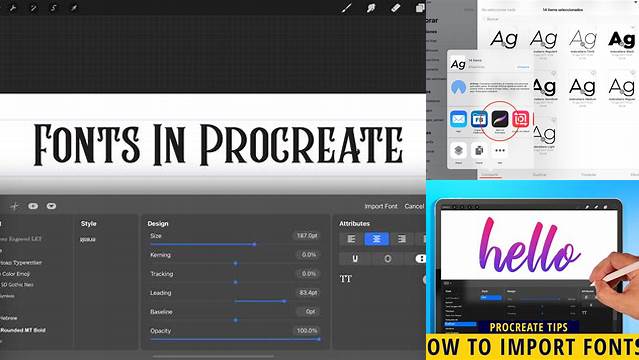
Import Fonts To Procreate: A Step-by-Step Guide
Hey guys! Want to take your Procreate artwork to the next level? One of the easiest ways to do that is by using custom fonts. Procreate's built-in font selection is decent, but it doesn't offer the variety needed to truly make your designs stand out. Luckily, importing fonts into Procreate is a breeze, and in this comprehensive guide, I'm going to walk you through everything you need to know. We'll cover the basics of finding fonts, downloading them, and installing them on your iPad, so you can start using them in Procreate right away. So, grab your Apple Pencil, and let's dive in!
Why Import Fonts into Procreate?
Before we get into the how, let's talk about the why. Why should you even bother importing fonts into Procreate? Well, the answer is simple: fonts are powerful design elements. They can convey mood, tone, and style just as effectively as colors and illustrations. Using the right font can elevate your artwork from good to great. Think about it – a playful, handwritten font can add a whimsical touch to a children's book illustration, while a bold, sans-serif font can make a statement in a poster design. The possibilities are endless when you have a vast library of fonts at your fingertips.
Procreate's built-in fonts are a good starting point, but they're limited in scope. If you want to create truly unique and professional-looking artwork, you'll need to expand your font collection. Importing fonts allows you to use fonts that perfectly match your artistic vision, whether you're working on lettering, comics, illustrations, or any other type of project. Plus, exploring new fonts can be a fun and inspiring way to spark creativity. You might discover a font that you never would have considered before, and it could become a key element in your next masterpiece. The ability to import fonts into Procreate opens up a whole new world of design possibilities, giving you the freedom to express yourself fully and create artwork that truly reflects your personal style. So, if you're serious about taking your Procreate skills to the next level, learning how to import fonts is an essential step. Trust me, guys, once you start using custom fonts, you'll wonder how you ever created anything without them!
Finding the Perfect Fonts for Procreate
Okay, so you're convinced that importing fonts is the way to go. The next step is finding those perfect fonts to add to your collection. The good news is that there are tons of resources out there, both free and paid, where you can discover amazing fonts. But with so many options available, it can feel a little overwhelming. Don't worry, I'm here to help you navigate the world of fonts and find the best ones for your needs. Let's break down some popular options and things to keep in mind when searching.
Step-by-Step Guide: Importing Fonts to Procreate
Alright, you've found some awesome fonts and you're itching to use them in Procreate. Now comes the fun part: importing them! Don't worry, it's a super straightforward process. I'm going to break it down into easy-to-follow steps so you can get your fonts into Procreate and start creating amazing artwork. Let's get to it!
1. Download the Font Files: The first step is to download the font files to your iPad. When you download a font from a website, it usually comes in a ZIP file. This file contains the font files themselves, which are typically in .otf (OpenType Font) or .ttf (TrueType Font) format. These are the standard font formats that Procreate supports. Once you've downloaded the ZIP file, you'll need to unzip it to access the font files. To do this, simply tap on the ZIP file in the Files app, and it will automatically extract the contents into a new folder. Make sure you know where the unzipped folder is located, as you'll need to access it in the next step.
2. Install the Font on Your iPad: Now that you have the font files, it's time to install them on your iPad. This is a crucial step, as Procreate can only use fonts that are installed on your system. There are a couple of ways to install fonts on your iPad, but the easiest and most common method is to use the Files app. Here's how:
- Open the Files app on your iPad.
- Navigate to the folder where you unzipped the font files.
- Tap on the font file you want to install (it will have a .otf or .ttf extension).
- A preview of the font will appear. Tap the "Install" button in the top right corner.
- A pop-up will ask if you want to install the font profile. Tap "Allow".
- You'll be redirected to the Settings app. Tap "Install" in the top right corner again.
- If you have a passcode set up on your iPad, you'll need to enter it.
- Tap "Install" one more time to confirm the installation.
- Once the font is installed, you'll see a "Profile Installed" message. Tap "Done".
Repeat these steps for each font file you want to install. It might seem like a lot of steps, but once you've done it a couple of times, it becomes second nature. Another way to install fonts is through third-party apps like iFont, which can make the process even easier, especially if you're installing a lot of fonts at once. These apps often have built-in font browsing and installation features, which can streamline the process. However, using the Files app is a reliable and free method that works for most users. Remember, guys, that installed fonts are available system-wide, meaning they can be used in any app on your iPad that supports custom fonts, not just Procreate. This makes it even more worthwhile to build up your font library.
3. Use the Font in Procreate: Congratulations, you've successfully installed your fonts! Now for the best part: using them in Procreate. Here's how to access your newly installed fonts:
- Open Procreate and create a new canvas or open an existing one.
- Tap the "Actions" icon (the wrench icon) in the top left corner.
- Tap "Add" and then select "Add Text".
- A text box will appear on your canvas, and the keyboard will pop up.
- Tap the "Aa" icon in the top right corner of the keyboard to access the font settings.
- The Font Style panel will open, showing you a list of available fonts.
- Scroll through the list to find your newly installed font. It will be listed alphabetically.
- Tap on the font to select it.
- You can now adjust the font size, style, kerning, and other settings using the controls in the Font Style panel.
That's it! You're now using your custom font in Procreate. You can type your text, resize it, reposition it, and apply various effects to it just like any other text layer. Experiment with different fonts and settings to create unique and visually appealing designs. Remember, guys, that the right font can make all the difference in your artwork. Don't be afraid to try out different fonts and see how they impact the overall look and feel of your designs. With a little practice, you'll be a font-importing pro in no time!
Troubleshooting Common Font Import Issues
Okay, so you've followed all the steps, but you're still having trouble getting your fonts to show up in Procreate. Don't panic! It happens to the best of us. Sometimes, things don't go quite as planned, but the good news is that most font import issues are easily fixable. I'm going to walk you through some common problems and how to troubleshoot them, so you can get back to creating awesome artwork.
1. Font Not Showing Up in Procreate: This is probably the most common issue people encounter when importing fonts. You've installed the font on your iPad, but it's not appearing in the Procreate font list. Here are a few things to check:
- Make sure the font is properly installed: Double-check that you followed all the steps in the installation process correctly. Go back to the Settings app and verify that the font profile is installed. If it's not, try installing it again.
- Restart Procreate: Sometimes, Procreate needs a little nudge to recognize newly installed fonts. Close the app completely (swipe it away from the app switcher) and then reopen it. This will force Procreate to refresh its font list.
- Restart your iPad: If restarting Procreate doesn't work, try restarting your iPad. This can help clear any temporary glitches that might be preventing the font from showing up.
- Check the font format: Procreate supports .otf and .ttf fonts. If you've downloaded a font in a different format, it won't work. Make sure the font file has the correct extension.
- Font might be corrupted: In rare cases, the font file itself might be corrupted. Try downloading the font again from the original source.
2. Can't Install the Font: Sometimes, you might run into issues during the installation process itself. Here are some common problems and solutions:
- "Profile Installation Failed" error: This error usually indicates that there's a problem with the font profile. Try downloading the font again or using a different font installation app like iFont.
- Missing "Install" button: If you don't see the "Install" button in the Settings app, it could be because you haven't allowed the font profile to be installed. Go to Settings > General > Profiles & Device Management and see if there's a font profile waiting to be installed. If so, tap on it and follow the instructions to install it.
3. Font Looks Different in Procreate: Occasionally, a font might look different in Procreate than it does in the font preview or in other apps. This could be due to a few reasons:
- Font rendering issues: Procreate's font rendering engine might not be perfectly compatible with all fonts. Try using a different font or adjusting the font settings in Procreate.
- Missing glyphs: Some fonts don't include all the characters or glyphs you might expect. If a particular character isn't displaying correctly, it could be because the font doesn't support it.
Remember, guys, that troubleshooting technical issues can sometimes be frustrating, but don't give up! With a little patience and persistence, you can usually find a solution. If you've tried all the troubleshooting steps and you're still having trouble, don't hesitate to reach out to Procreate support or ask for help in online forums or communities. There are plenty of people who are happy to share their knowledge and experience.
Tips for Managing Your Procreate Fonts
Now that you're a font-importing whiz, let's talk about managing your font collection. As you download more and more fonts, it's important to keep things organized so you can easily find the fonts you need when you need them. Here are some tips for managing your Procreate fonts effectively:
1. Organize Your Fonts into Folders: One of the best ways to keep your fonts organized is to create folders for different font styles or categories. For example, you might have folders for serif fonts, sans-serif fonts, script fonts, and display fonts. You can also create folders for specific projects or clients. This makes it much easier to browse your font collection and find the perfect font for your current project. To create folders, simply use the Files app on your iPad. You can create a main "Fonts" folder and then create subfolders within it for different categories.
2. Use a Font Management App: If you have a large font collection, you might want to consider using a font management app like iFont or Fontcase. These apps allow you to preview, install, and organize your fonts more efficiently than the Files app. They often have features like font tagging, filtering, and the ability to activate and deactivate fonts as needed. This can be especially helpful if you have a lot of fonts installed and you want to avoid slowing down your iPad's performance.
3. Preview Fonts Before Installing: Before you install a font, it's a good idea to preview it to see if it's the right fit for your needs. Most font websites and marketplaces offer font previews that allow you to type in your own text and see how it looks in the font. You can also use font management apps to preview fonts before installing them. This can save you time and effort by preventing you from installing fonts that you don't actually like.
4. Be Mindful of Font Overload: It's tempting to download every cool font you come across, but having too many fonts installed can actually slow down your iPad and make it harder to find the fonts you need. Try to be selective about the fonts you download and only install the ones you think you'll actually use. You can always download more fonts later if you need them. If you find that your font list is getting too long, consider deleting some fonts that you don't use anymore. Remember, guys, that a well-organized font collection is a happy font collection. By taking the time to manage your fonts effectively, you'll be able to find the perfect font for every project and create stunning artwork in Procreate.
So, there you have it – a comprehensive guide to importing fonts into Procreate! We've covered everything from finding the perfect fonts to troubleshooting common issues and managing your font collection. I hope you found this guide helpful and that you're now ready to unleash your creativity with custom fonts in Procreate. Remember, guys, that fonts are a powerful design tool, and by importing them into Procreate, you're opening up a whole new world of possibilities for your artwork. Don't be afraid to experiment with different fonts and see how they can transform your designs. Happy creating!